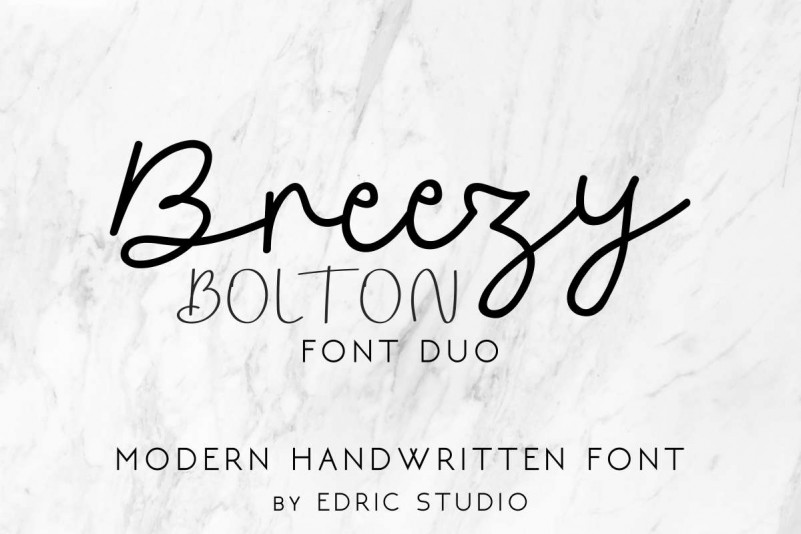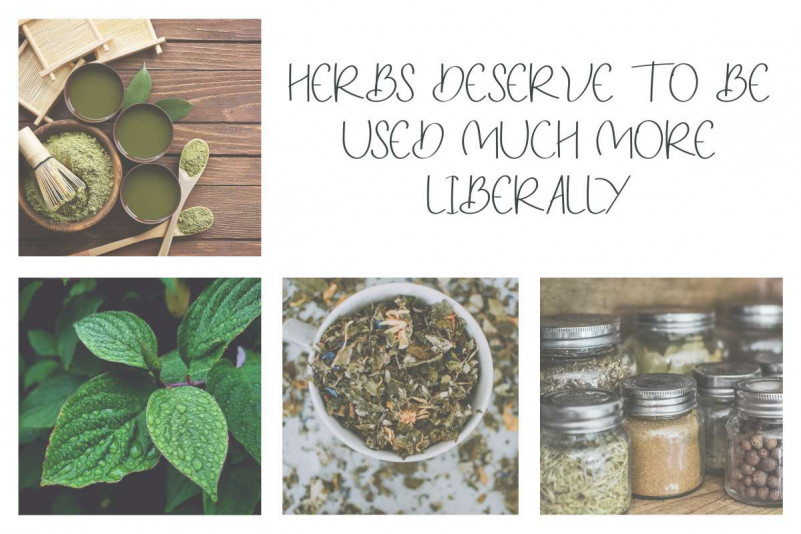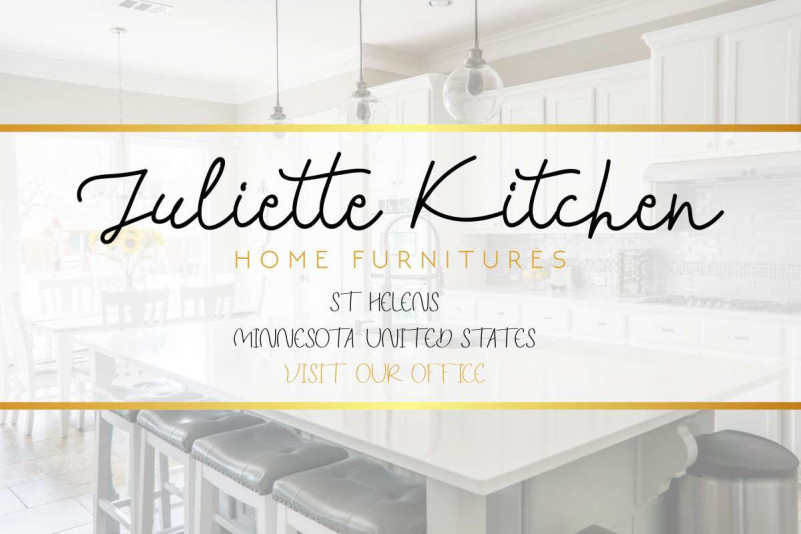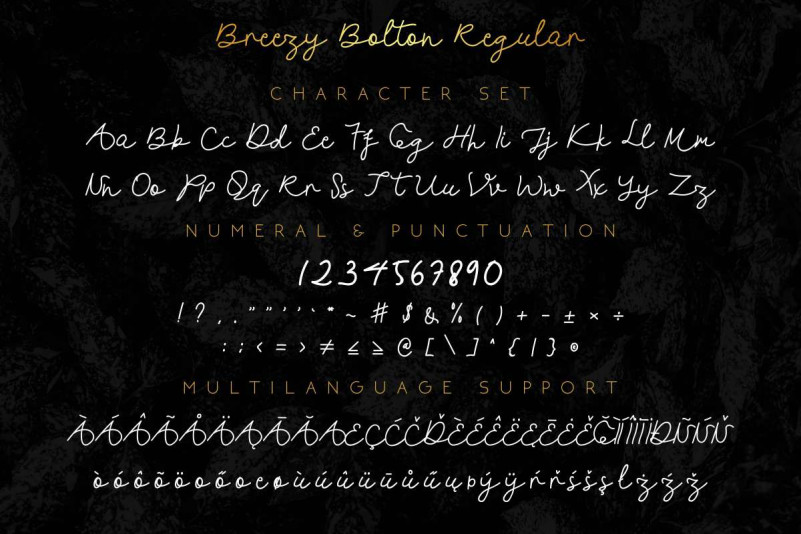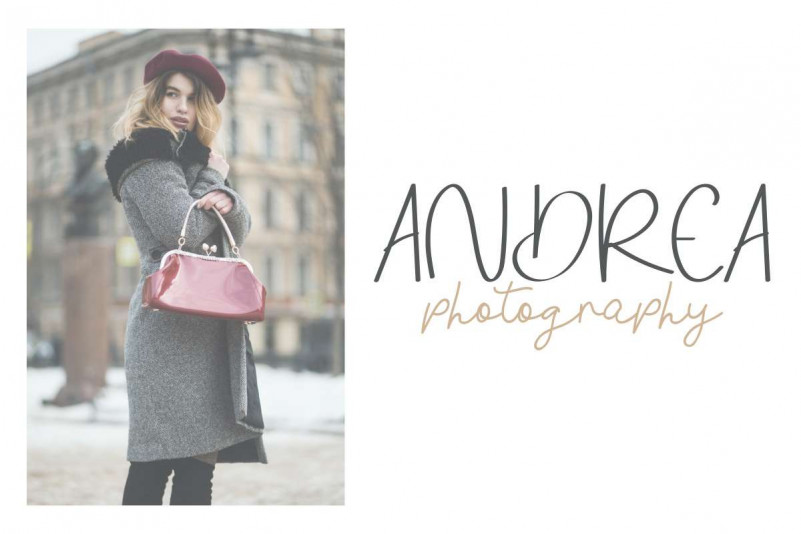
Breezy Bolton Script Font Duo
Hola, please welcome our new font : Breezy Bolton Script Font Duo! Breezy Bolton is a font duo consist of two different styles: Cursive Handwriting and sans display This font will Work on PC & Mac with Simple installations. Accessible in the Adobe Illustrator, Adobe Photoshop, Adobe InDesign, even work on Microsoft Word. It’s also PUA Encoded Characters – Fully accessible without additional design software. Plus it support multi-language